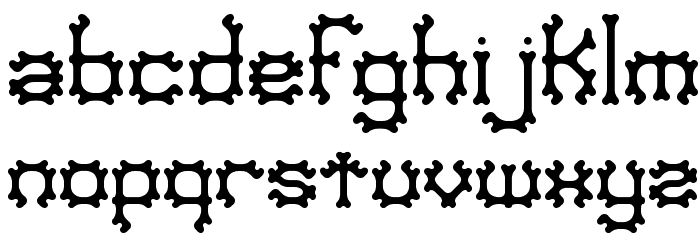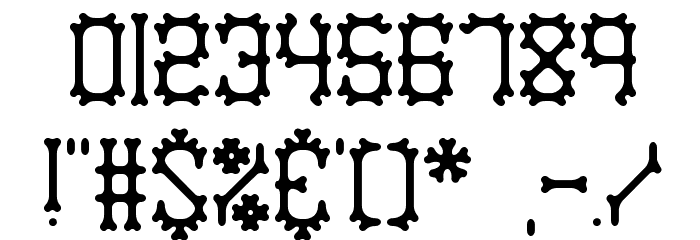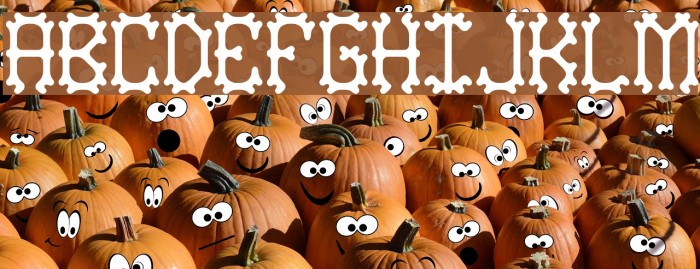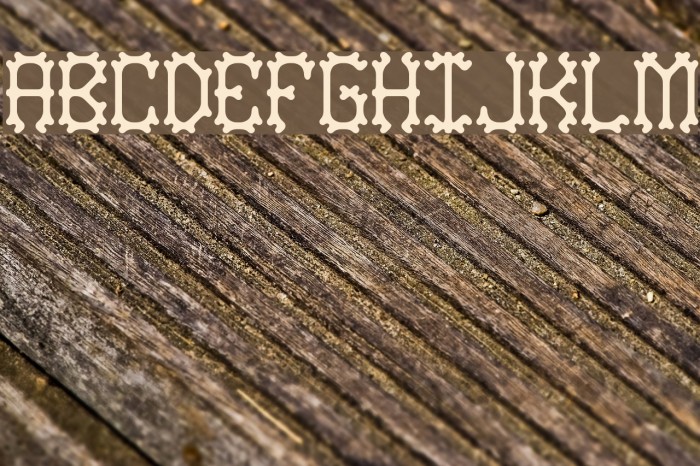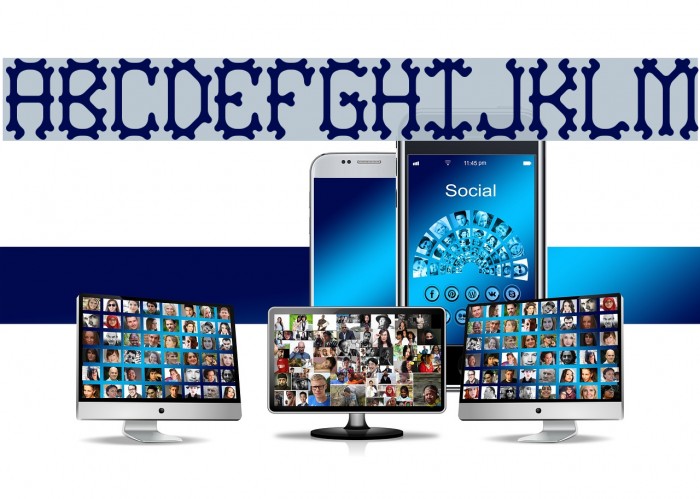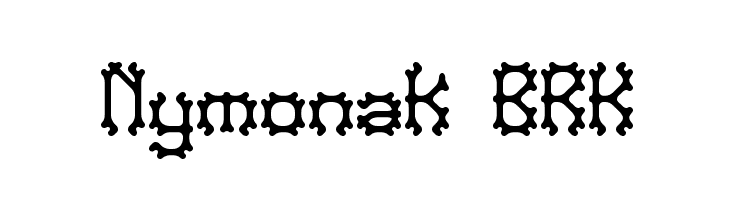
Nymonak BRK Font
This font features a highly decorative and unique style, characterized by its intricate, almost skeletal design. Each character is composed of bold strokes that form a lattice-like structure, giving it a distinct and eye-catching appearance. The font's design is consistent across uppercase, lowercase, numbers, and special characters, maintaining its ornate aesthetic. The characters have a symmetrical and geometric quality, with rounded edges and connecting lines that create a cohesive look. This font is ideal for projects that require a bold and unconventional typeface, making it suitable for artistic and creative applications.
A decorative and intricate font with a bold, lattice-like design.
- Proposed Projects: Ideal for artistic projects, posters, album covers, and any design requiring a standout, decorative typeface.
- Use Case: Headlines, Logos, Artistic designs